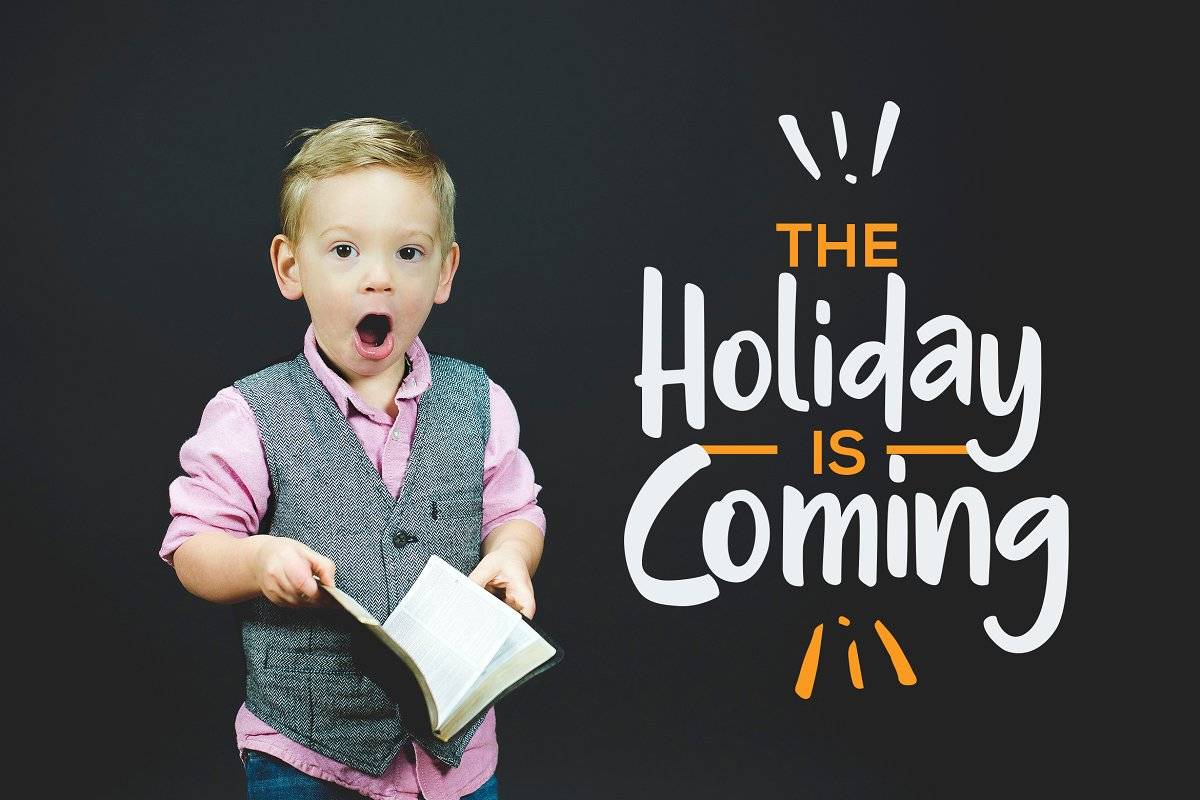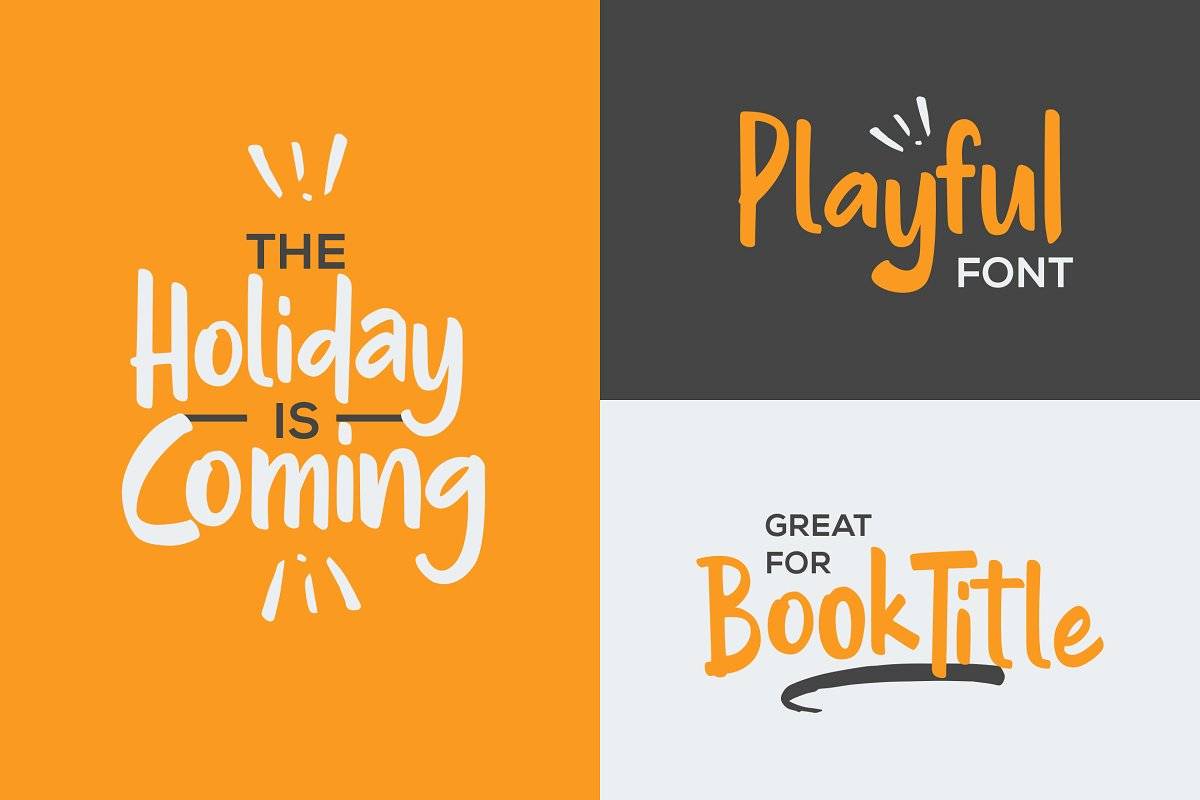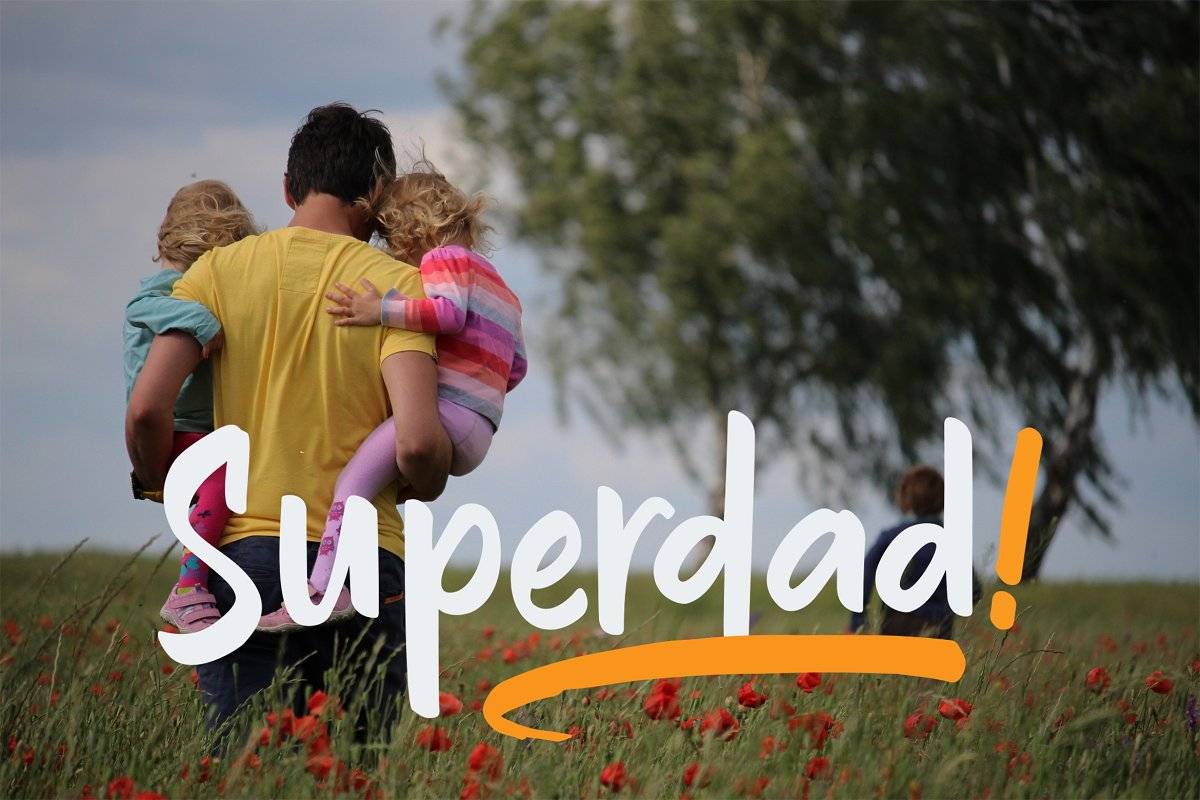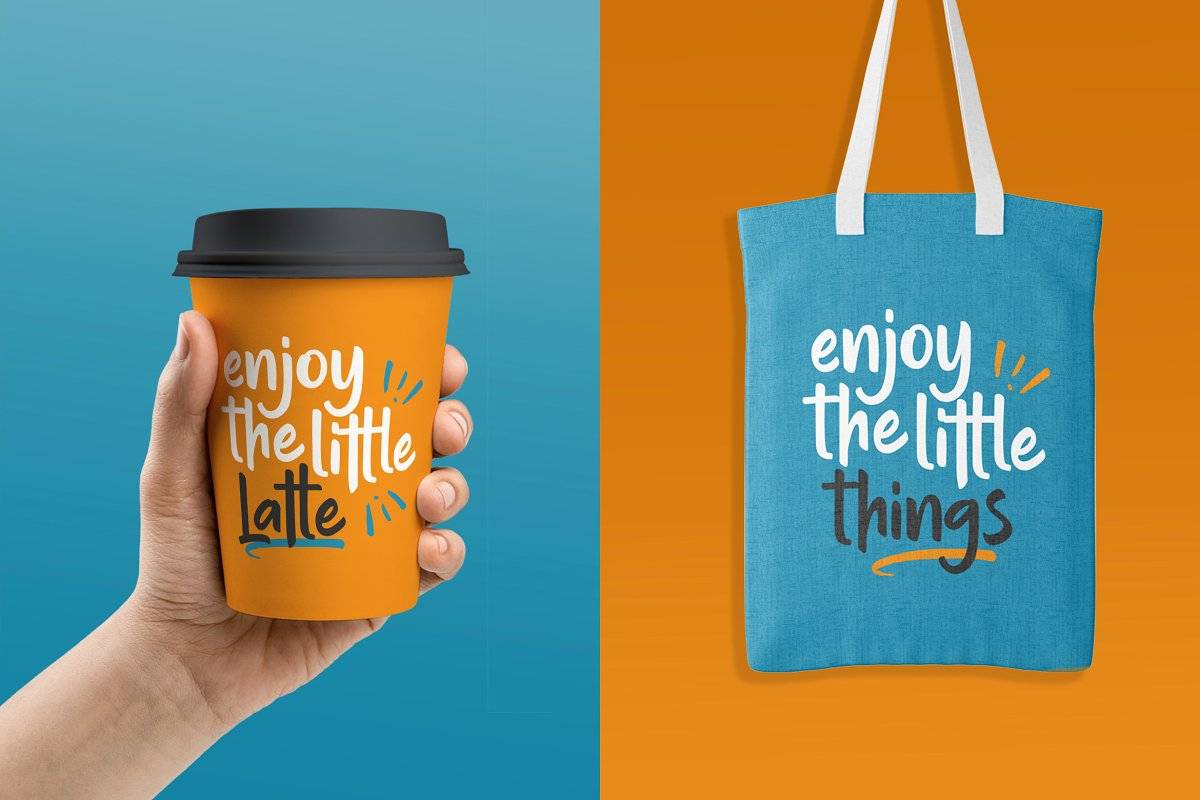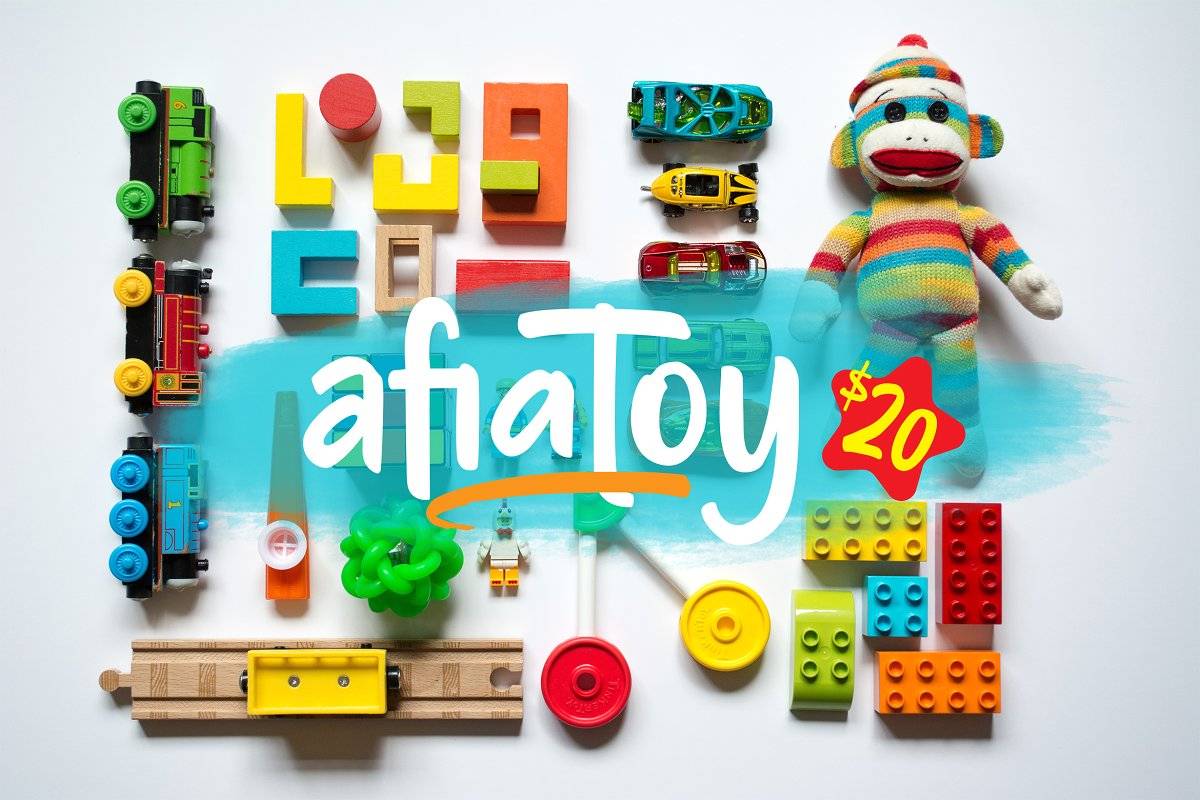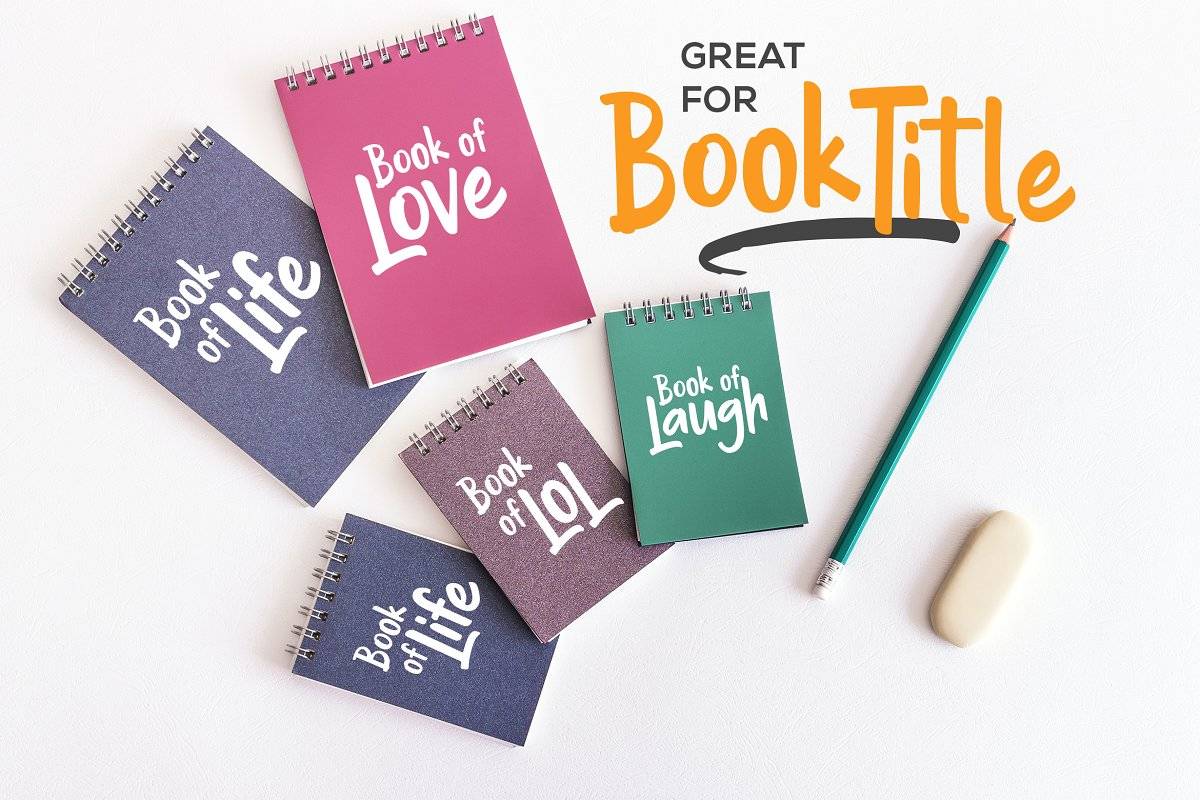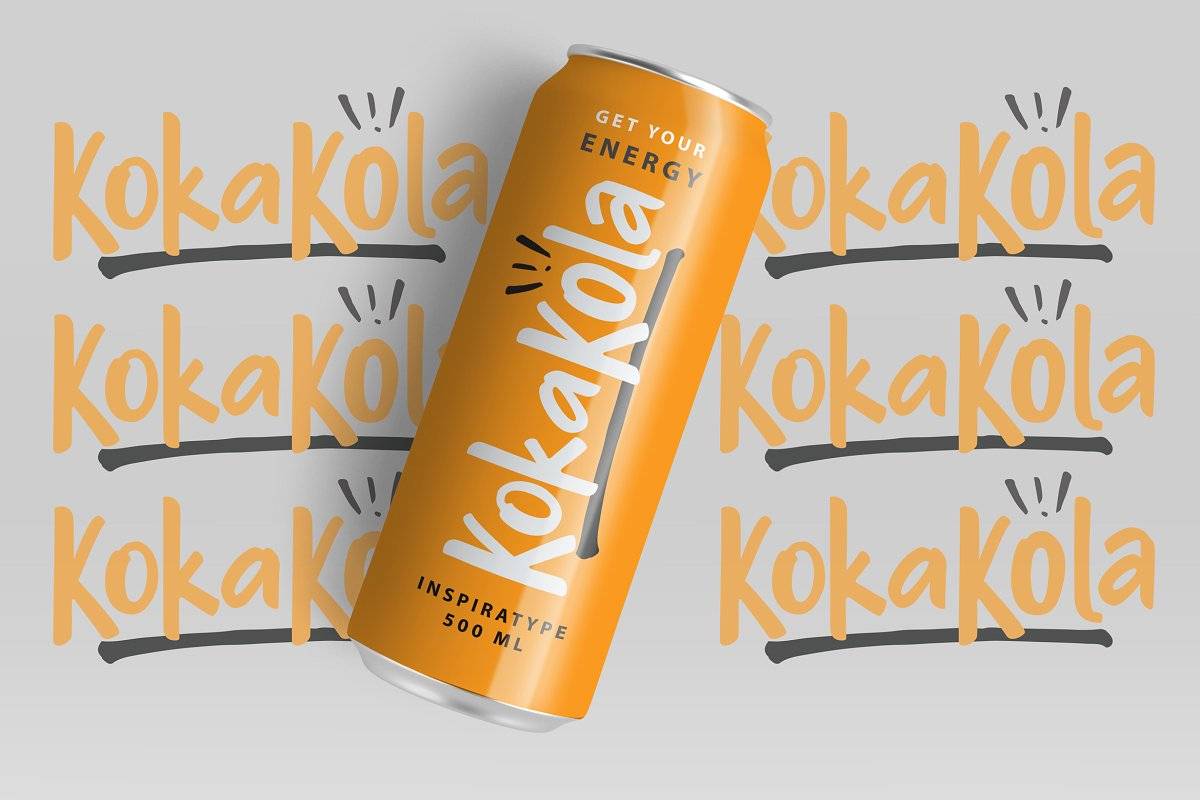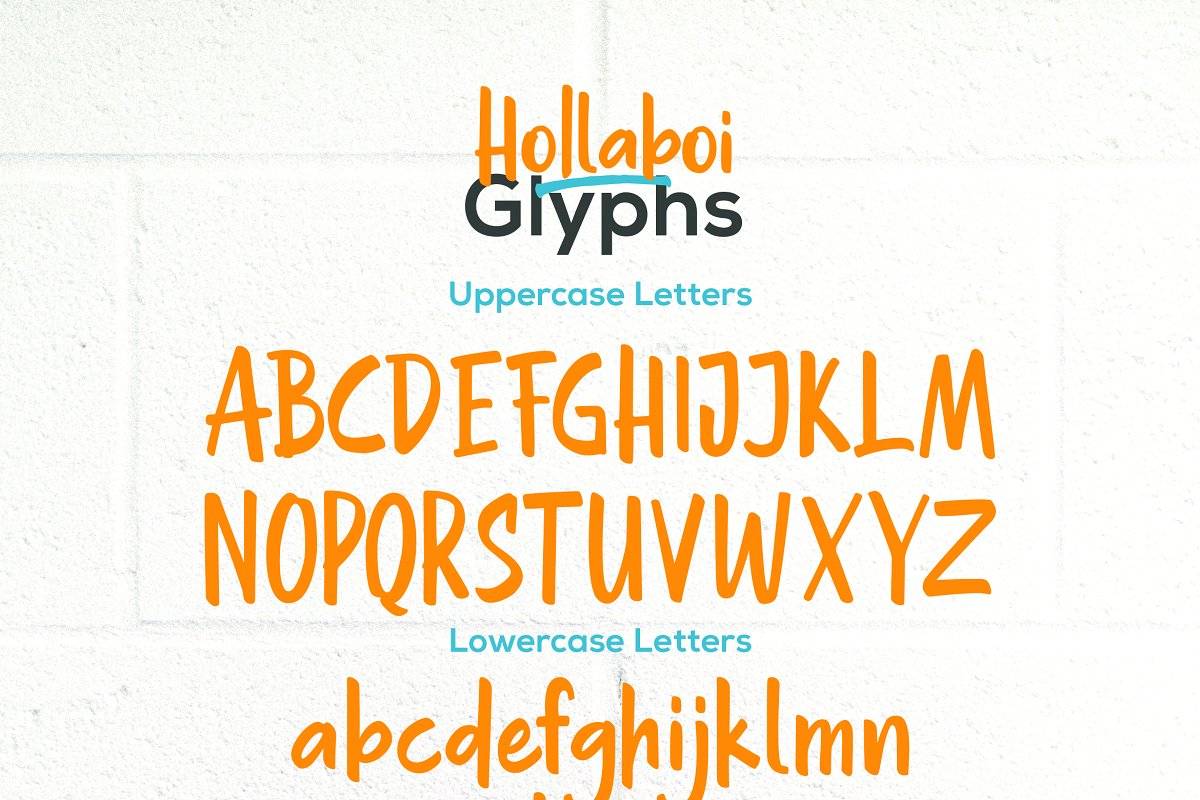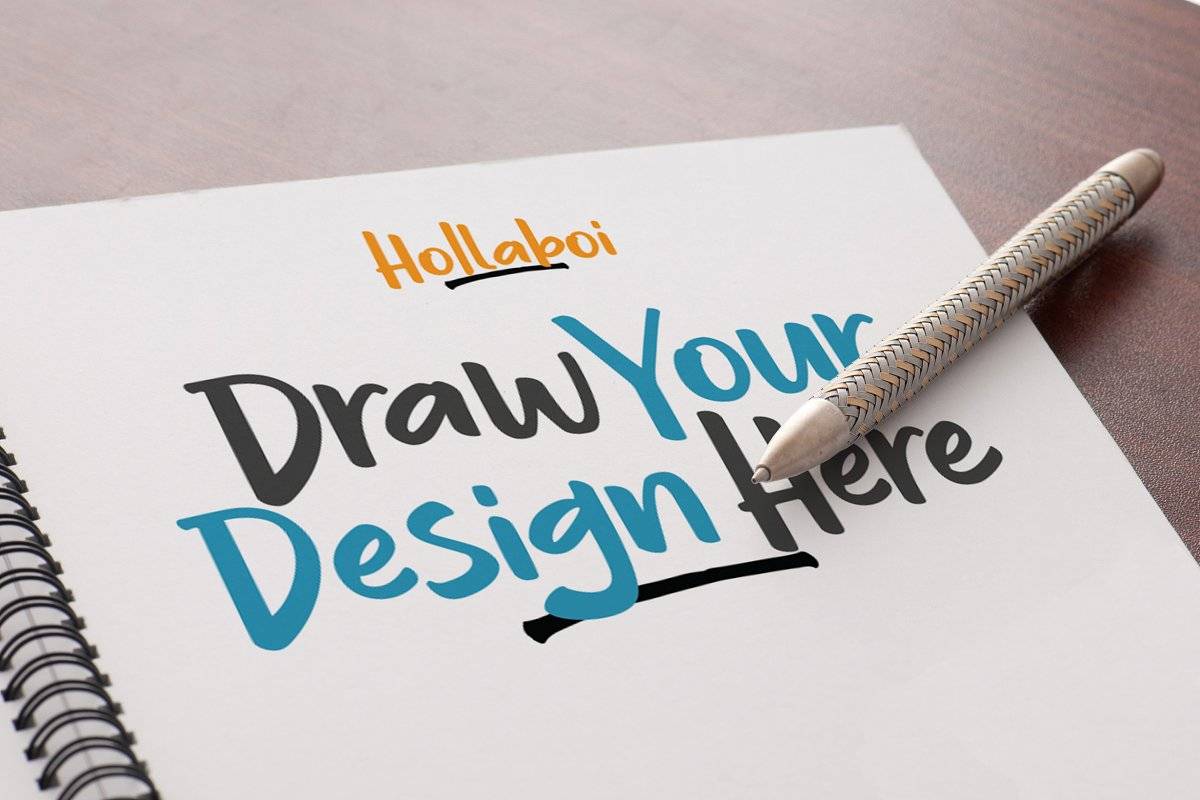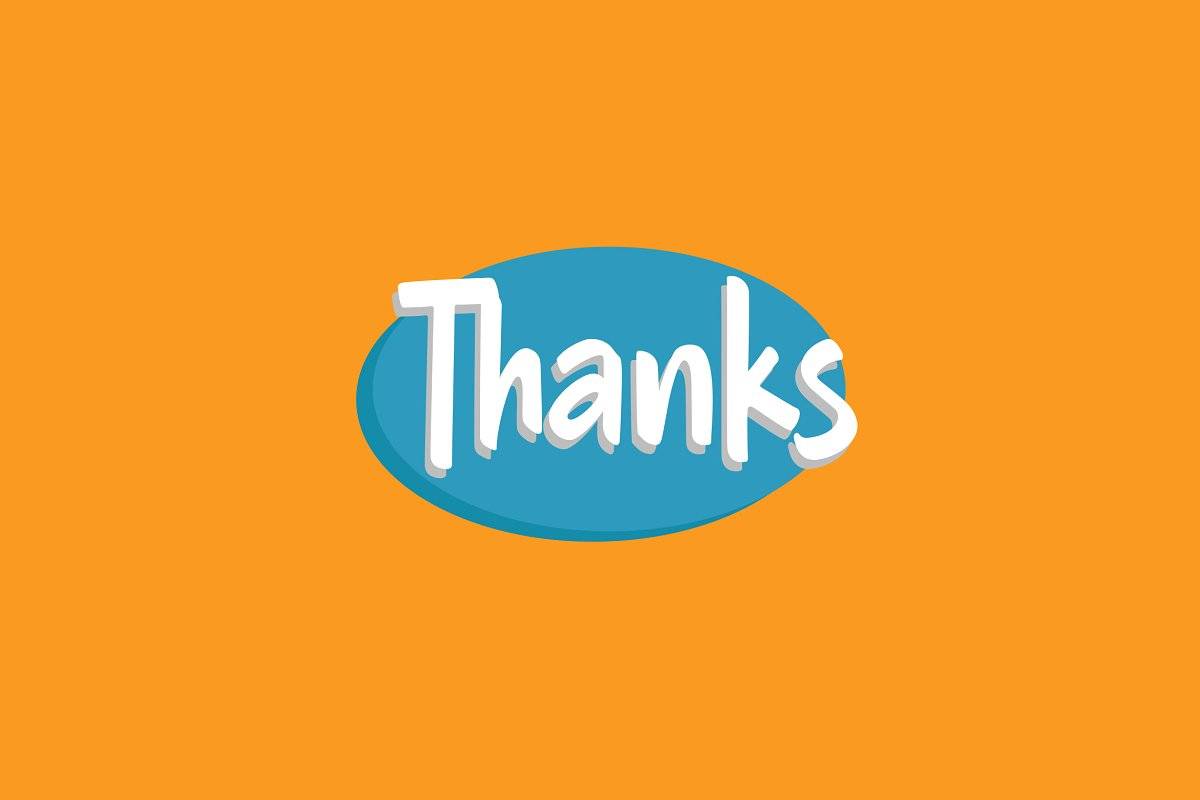
Hollaboy Display Font Demo is a playful and casual handwritten sans serif that feels friendly and approachable. Its tall, slightly irregular letterforms with consistent stroke weight give it an informal charm, making it perfect for fun, youthful branding, invitations, or social media headlines. This font works well when you want to add a personal, energetic touch without sacrificing readability.
Hollaboy Display Font Demo
About Hollaboy Display Font Demo